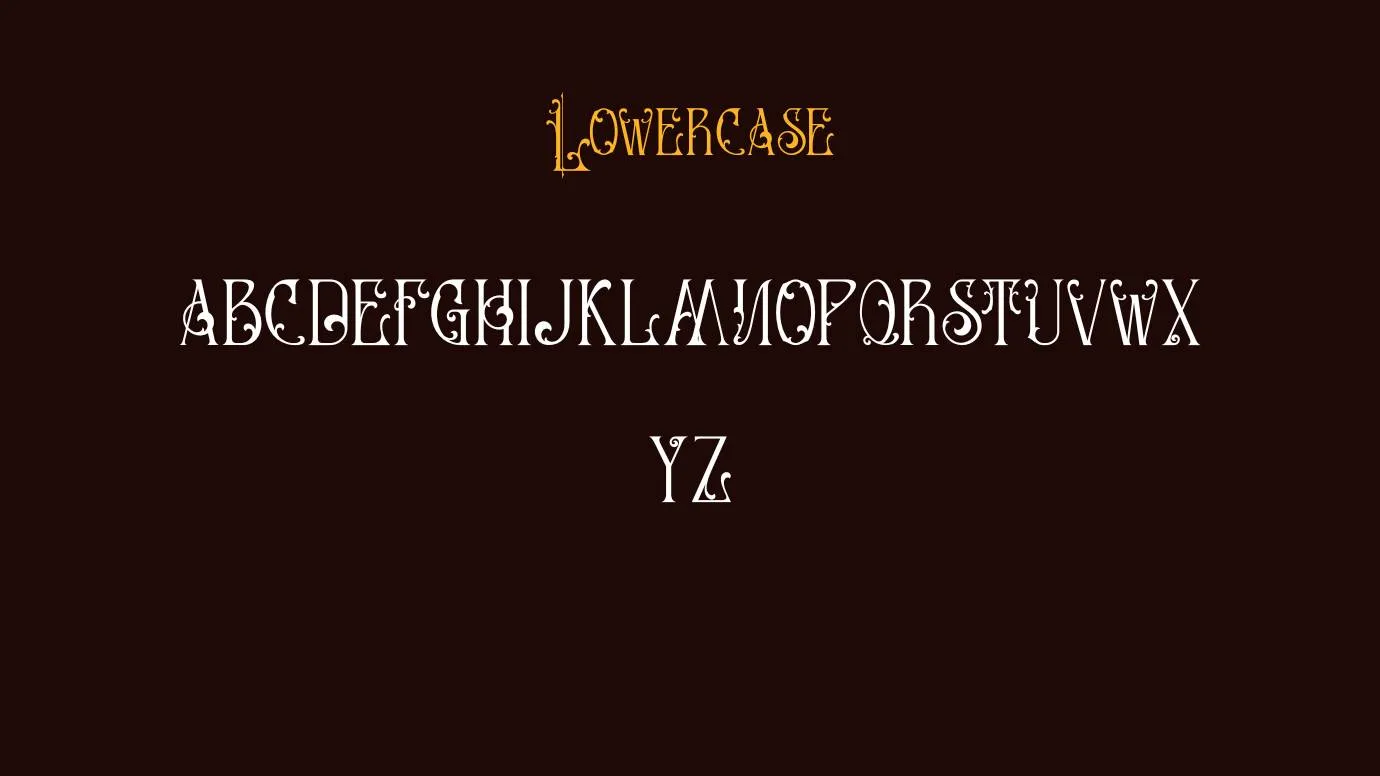
Font Introduction
Blackshot Font Famly which is a modern and decorative texture. This cozy font falls in the classification of the display family of fonts. Hayinah is the first and main designer of this typeface and Rockboys Studio is the publisher of this classic typography. This tremendous font family has both OTF and TTF formats that are available on our platform.
A lot of similar textures are obtainable but the most alternative font to this typeface is the goldsmith vintage font which is a famous display type font. If you want to create similar text to this typeface then you can easily use the text generator tool of this font. This awesome font contains only 1 regular style that has multiple uses and we are going to discuss its uses in the next section.
Name | Blackshot Font |
Type | Display |
Designer | Hayinah |
Foundry | Rockboys Studio |
Who is the manufacturer of Blackshot Font?
Hayinah is the designer and Rockboys Studio is the publisher of this unique lettering font it comes in a display font family.